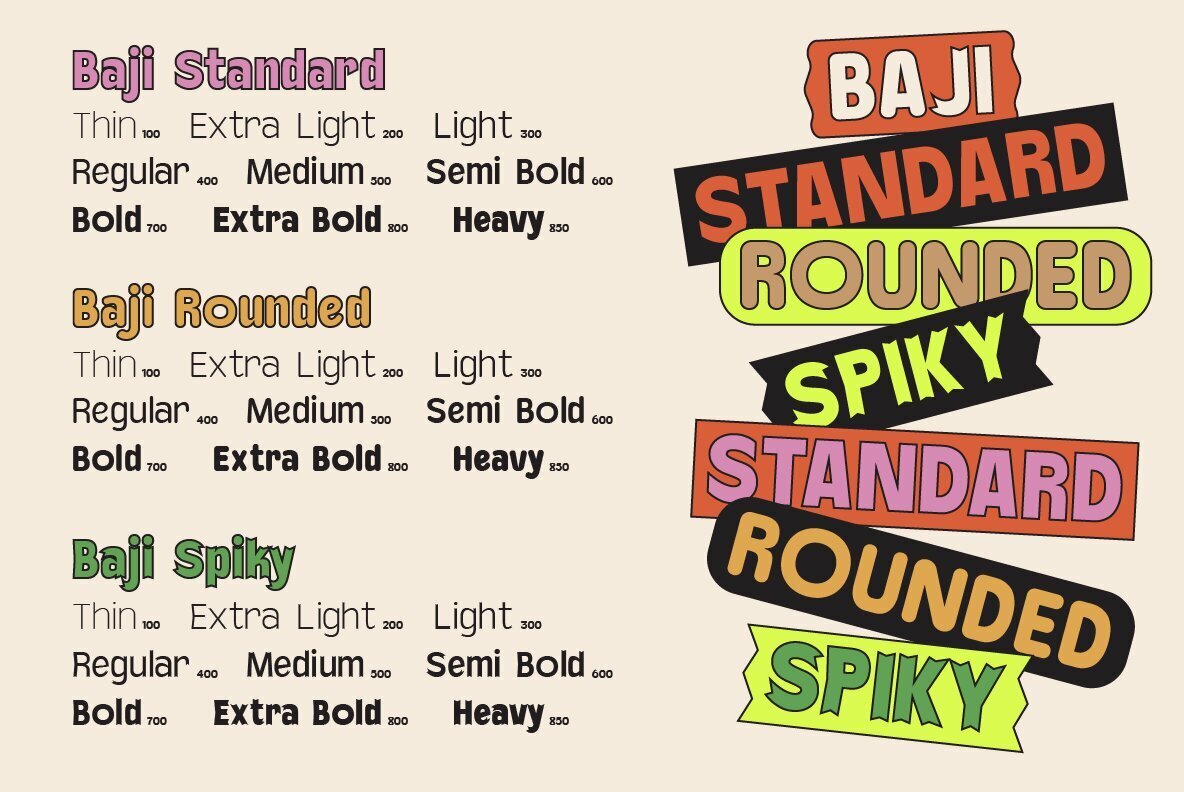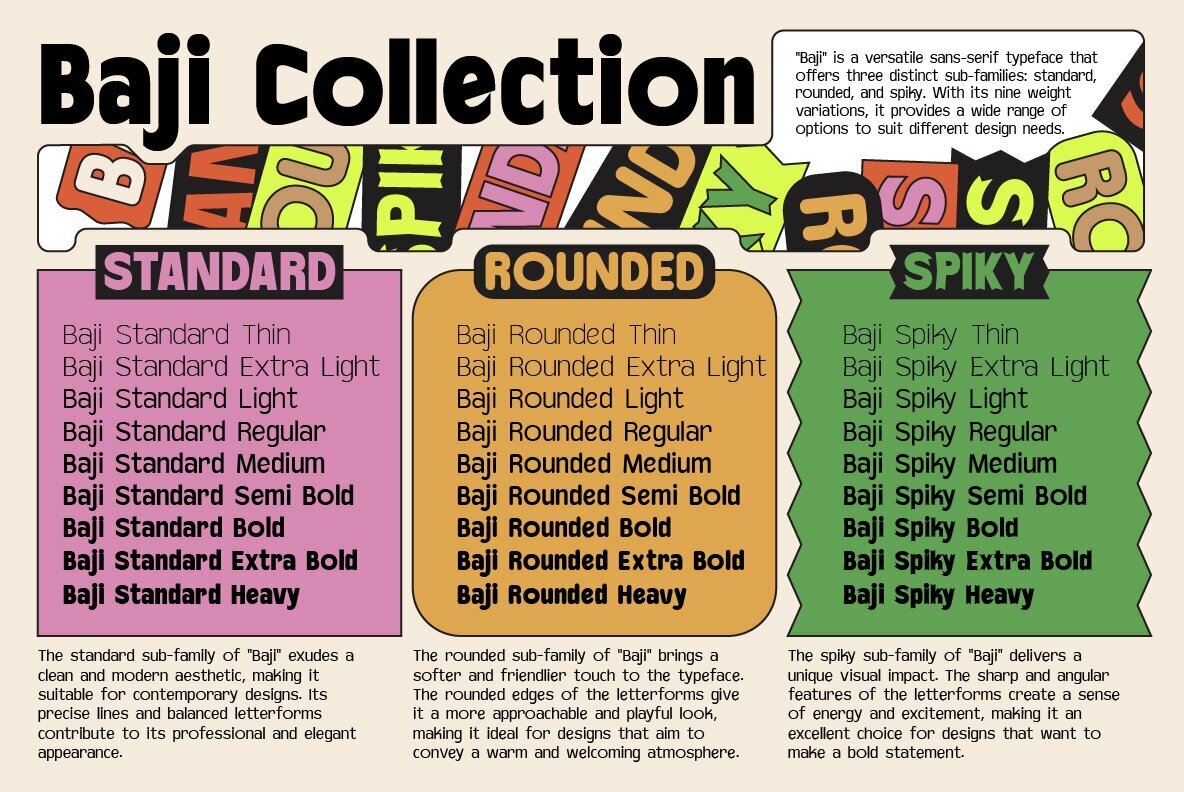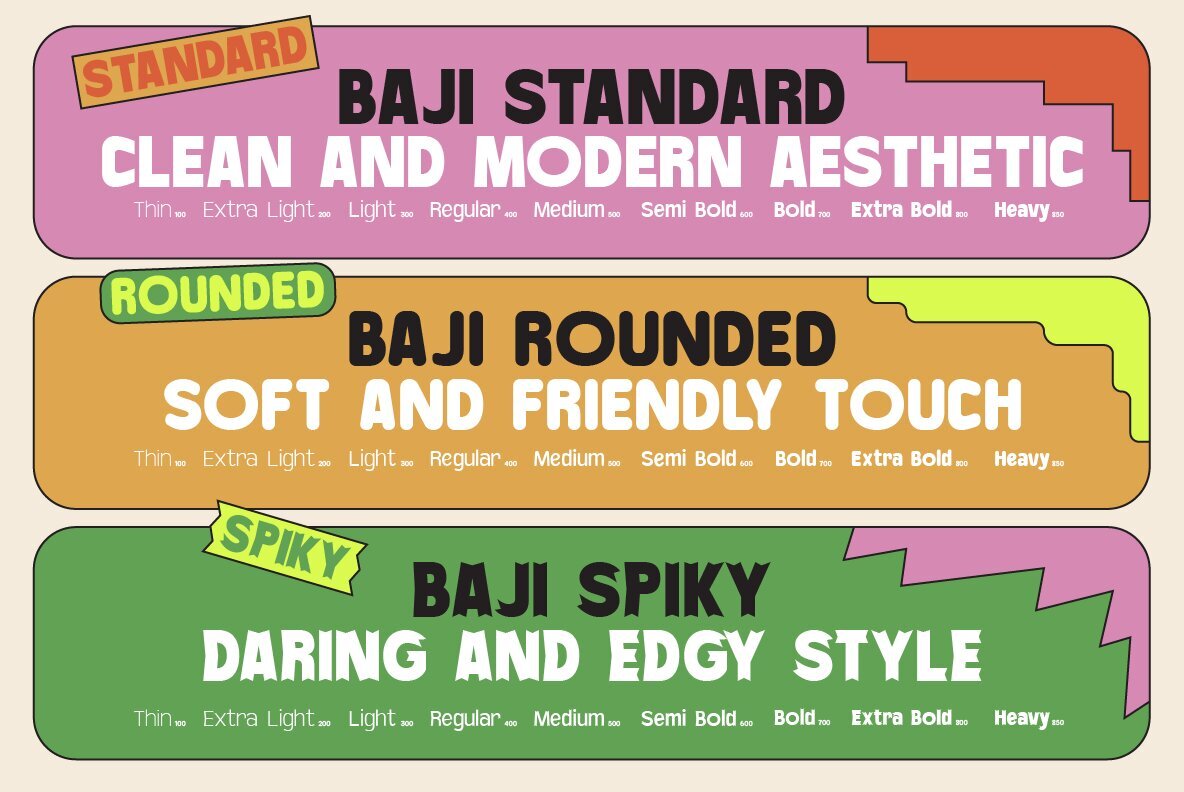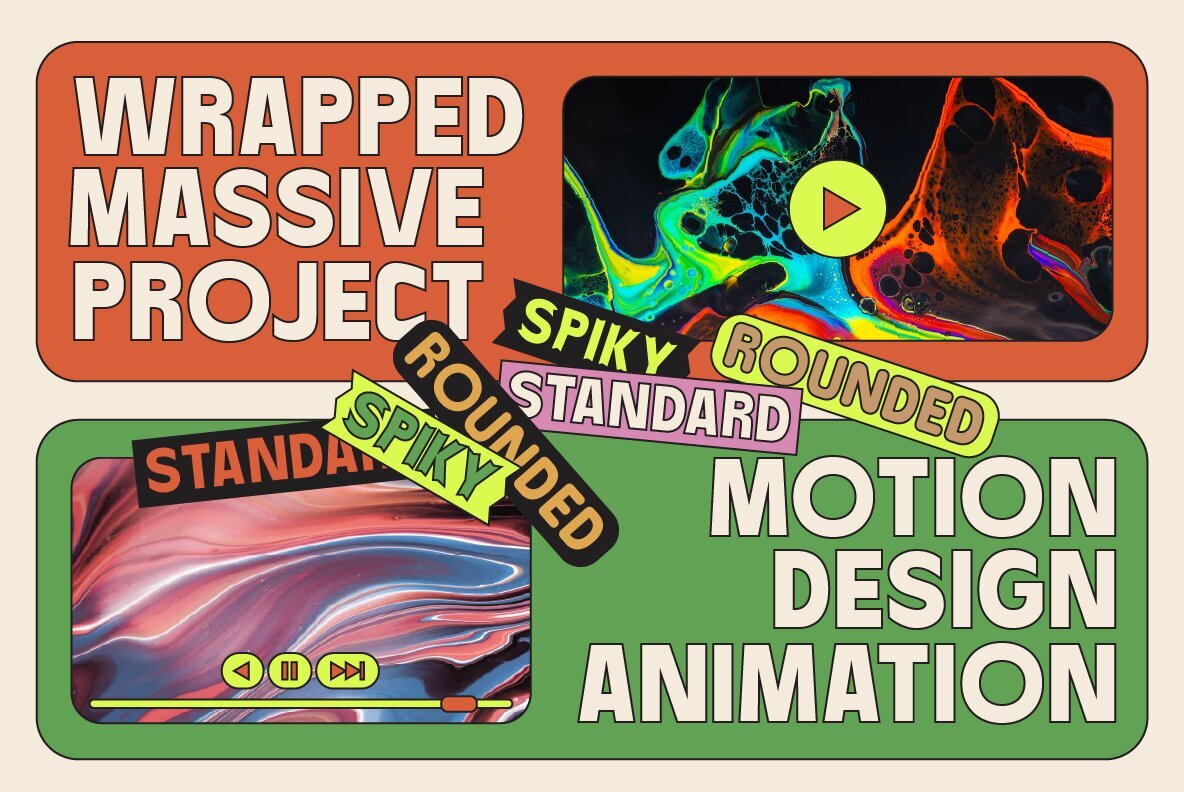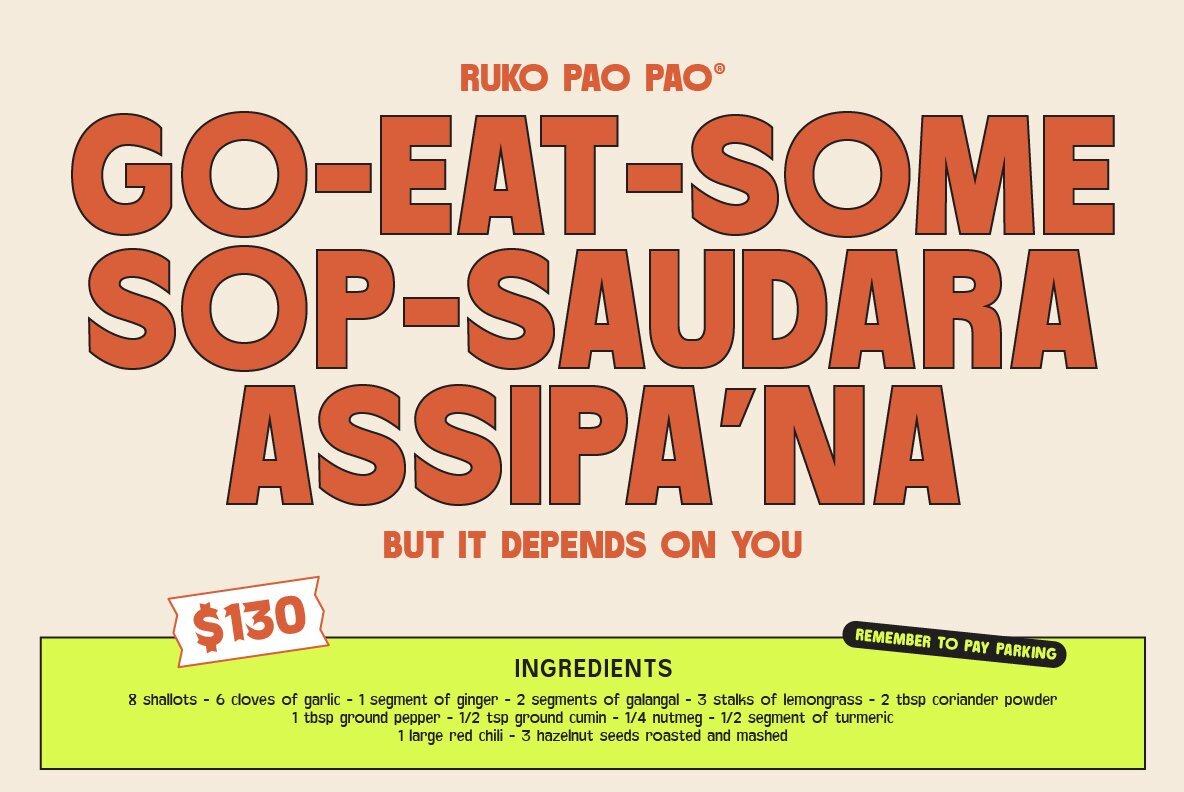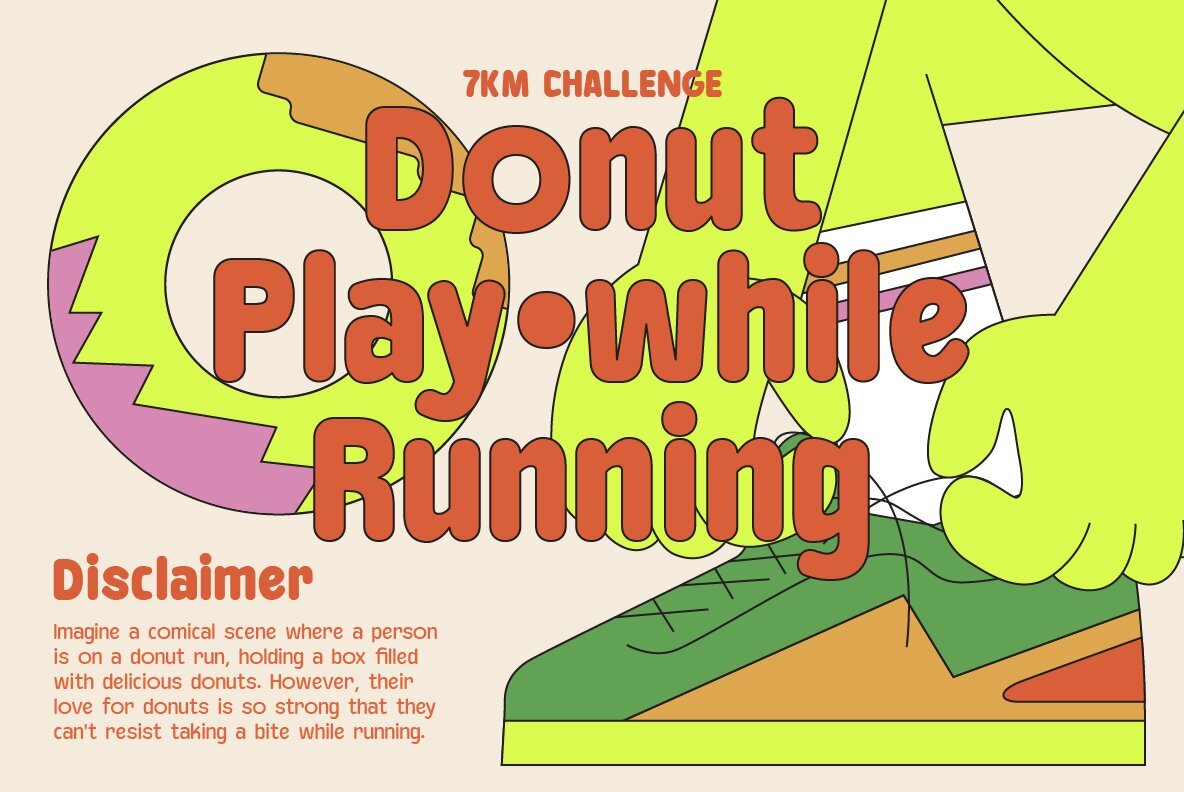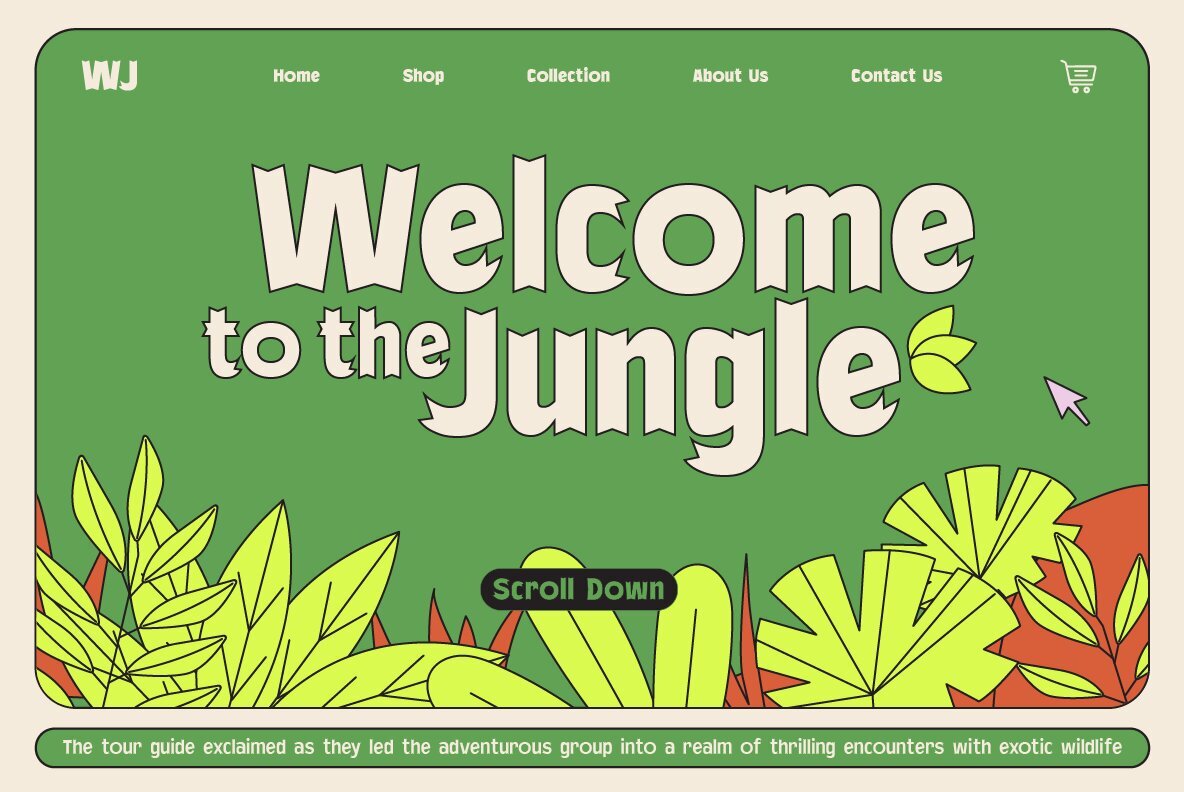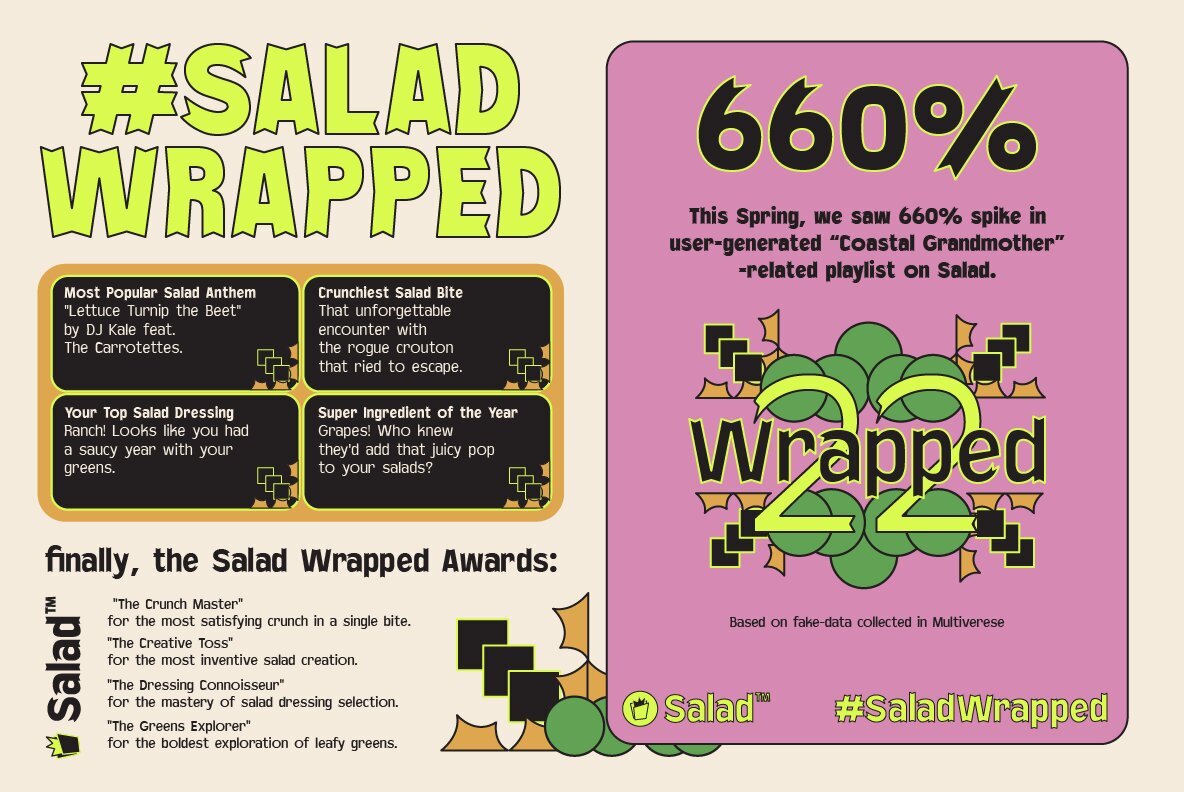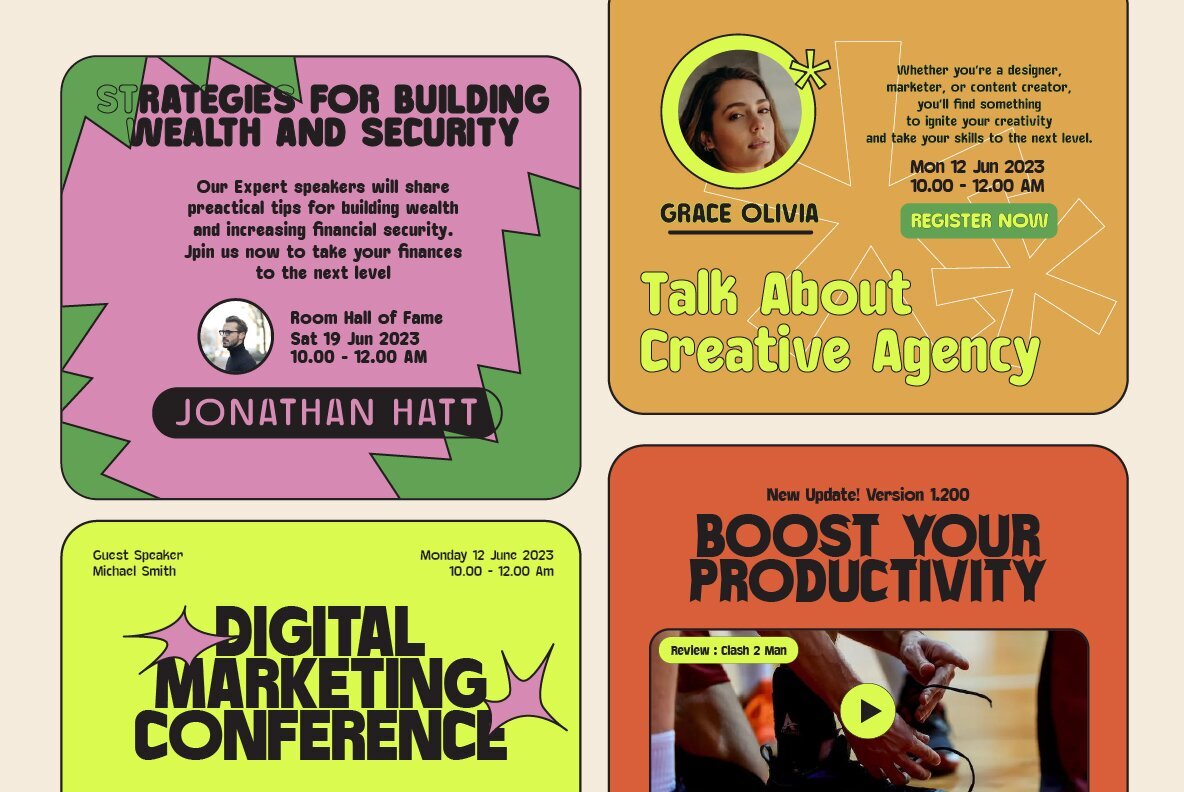
Baji Font
Baji Typeface is a versatile sans-serif typeface that offers three distinct sub-families: standard, rounded, and spiky. With its nine weight variations, it provides a wide range of options to suit different design needs.